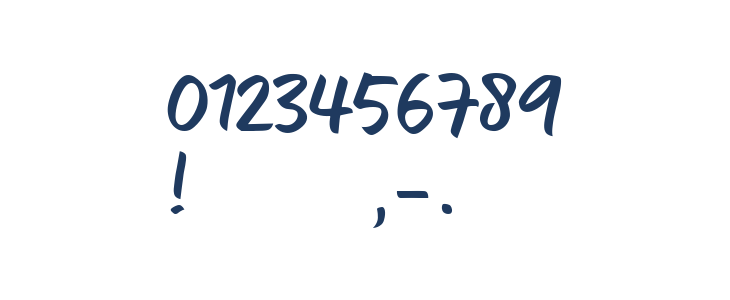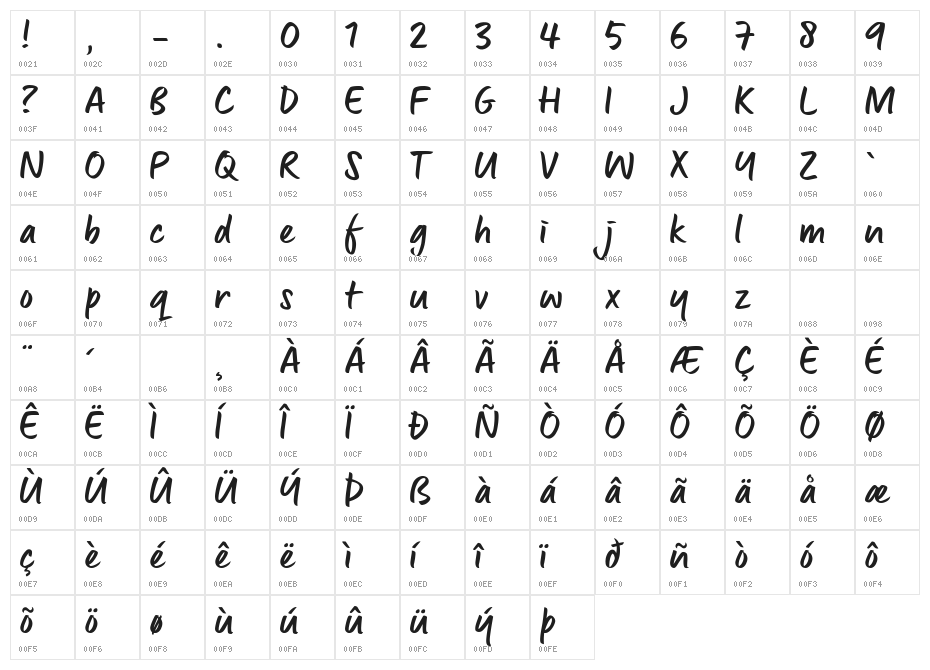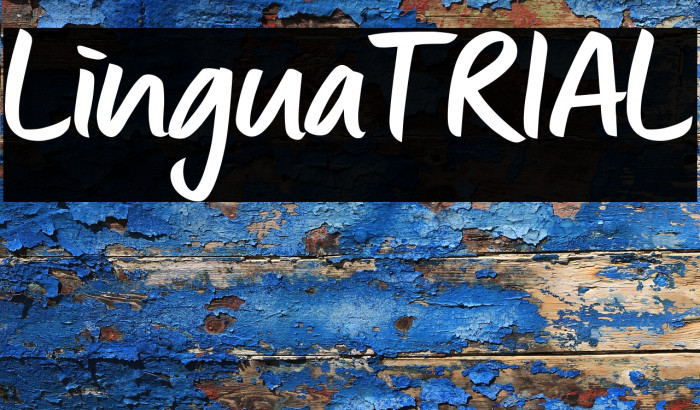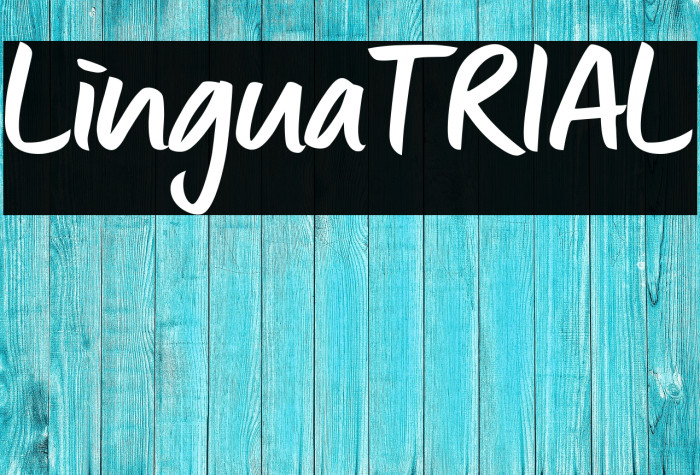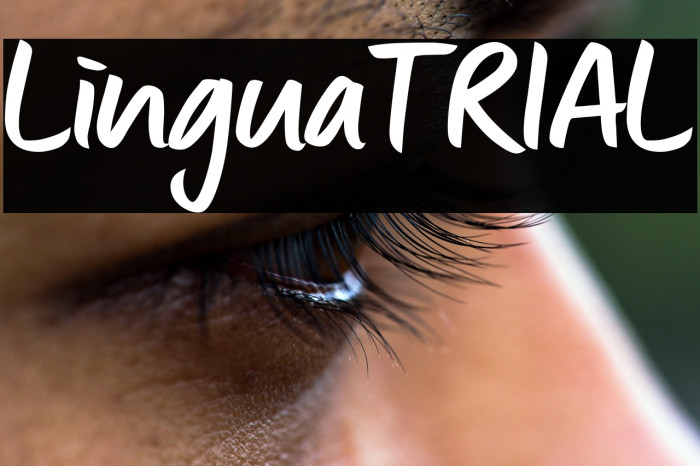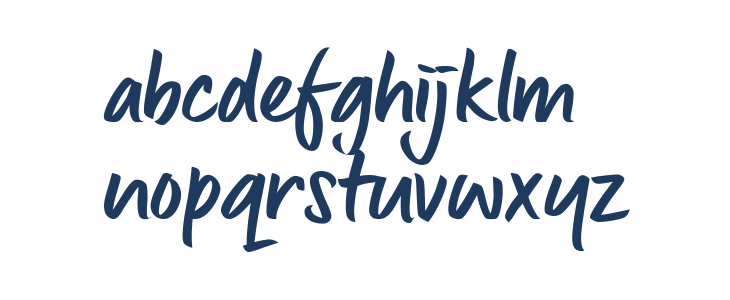
Lingua_TRIAL Font
Lingua_TRIAL Description
This font features a bold, handwritten style with a casual and dynamic appearance. The letters are slightly slanted, giving it an informal and energetic feel. The strokes are thick and consistent, providing a strong visual impact. The uppercase and lowercase letters maintain a cohesive style, with rounded edges and smooth curves. The numerals and special characters follow the same design principles, ensuring uniformity across all characters. This font is ideal for projects that require a personal touch or a sense of spontaneity.